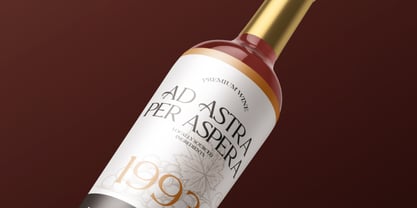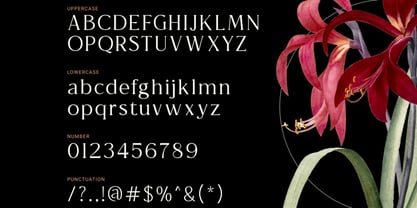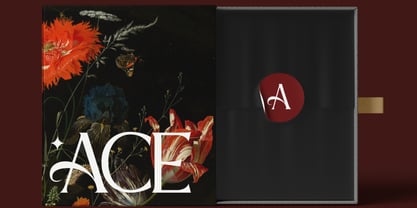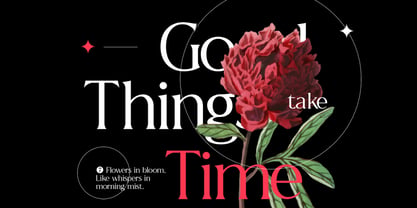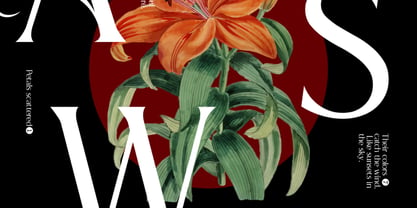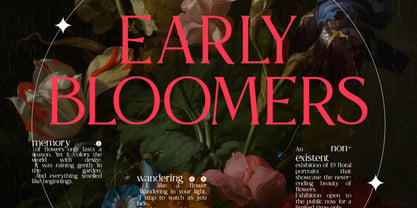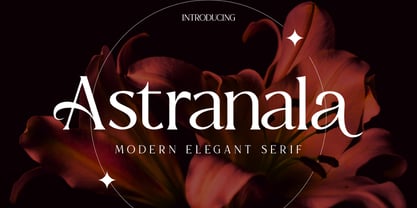
Astranala
Astranala is a refined modern serif typeface that balances timeless elegance with contemporary design sensibility. Featuring sleek contrast, tapered strokes, and subtle flared terminals, Astranala brings sophistication and clarity to any creative project. This font includes uppercase and lowercase letters, numerals, punctuation, and multilingual support, allowing for broad stylistic application. Its high‑end aesthetic is ideal for editorial use, premium branding, fashion publications, packaging, and headline typography. Astranala is tailored for creatives and brands seeking a refined yet modern serif aesthetic. Its graceful letterforms and elegant contrast make it ideal for high‑end editorial layouts, fashion magazines, luxury branding, minimalist packaging, and premium marketing materials.